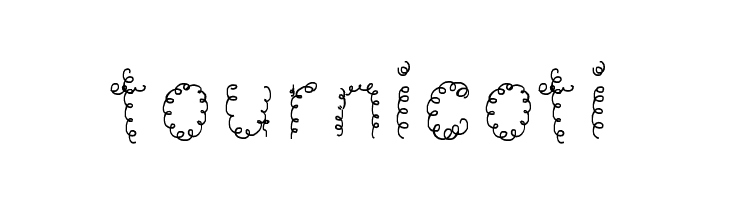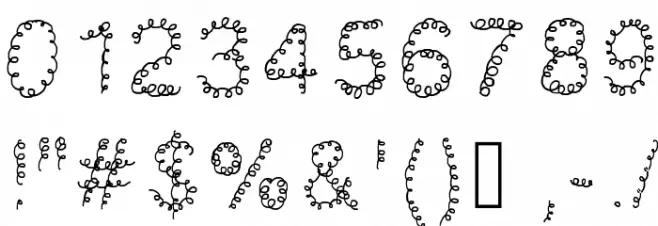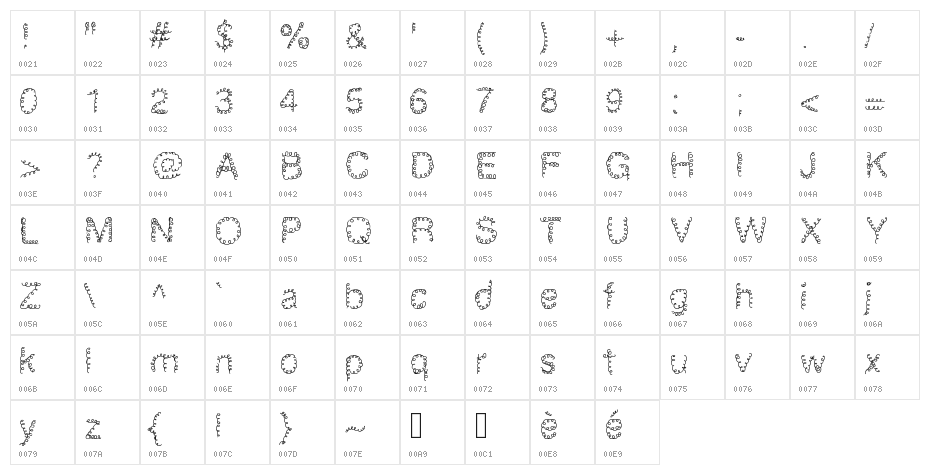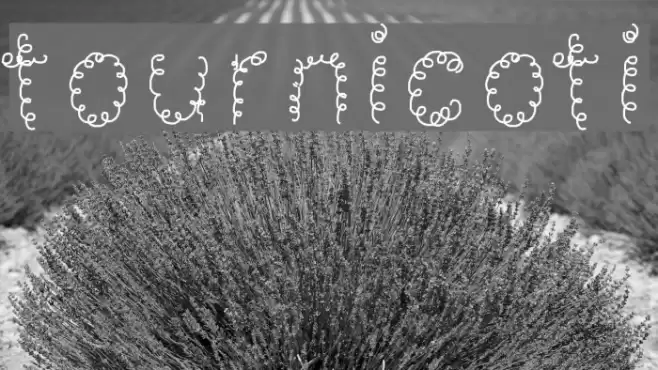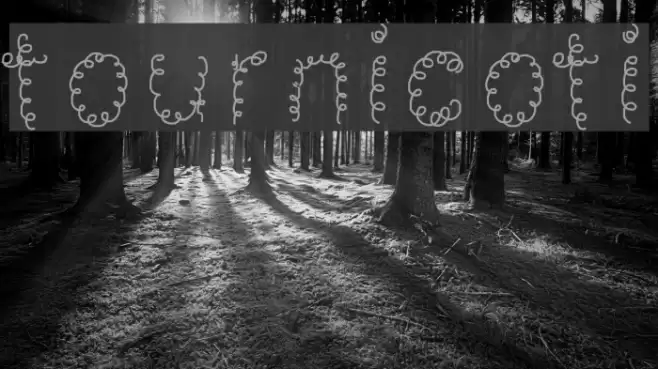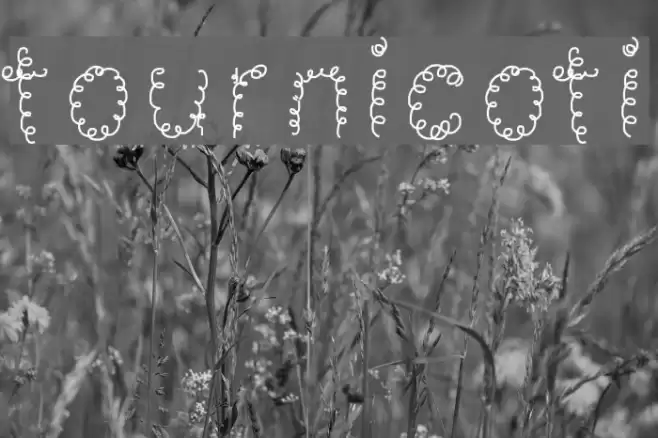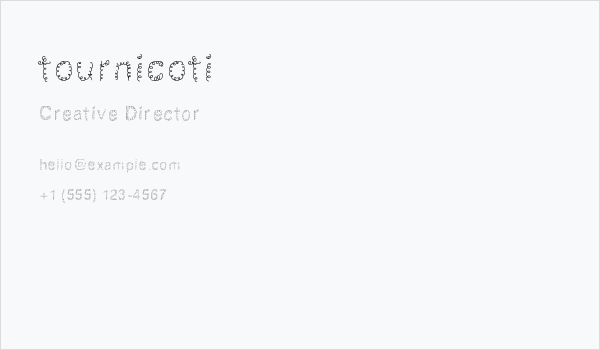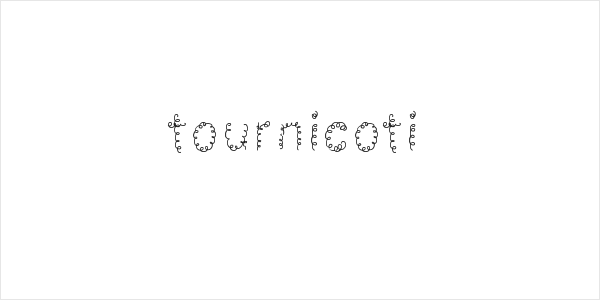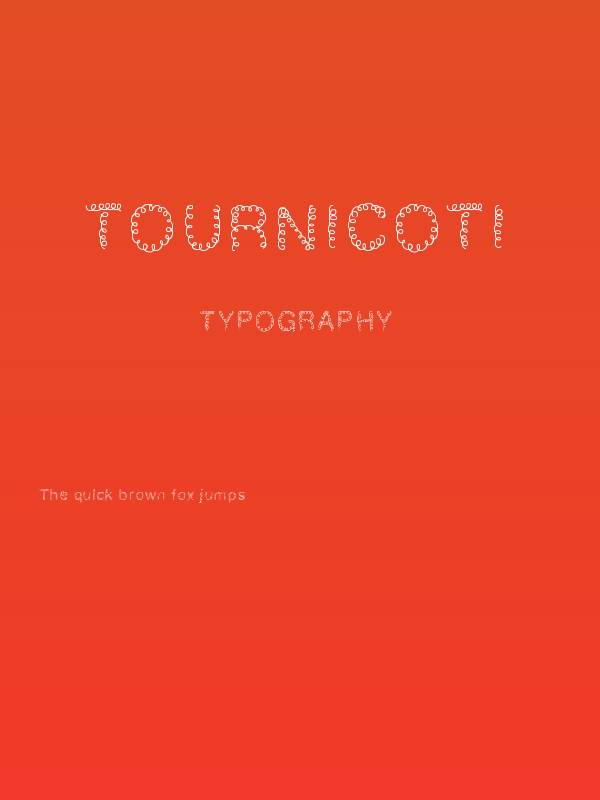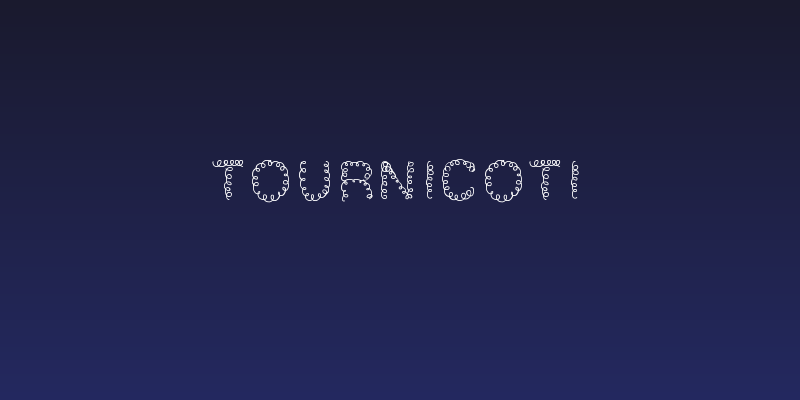
tournicoti Font
tournicoti Description
This whimsical and playful font features a unique design where each character is composed of intricate spiral curls. The letters have a hand-drawn, decorative quality that gives them a lively and dynamic appearance. The font maintains a consistent style across uppercase, lowercase, numbers, and special characters, making it visually cohesive. The curls add a sense of movement and creativity, making it ideal for projects that require a fun and engaging aesthetic. The font's distinctiveness lies in its ability to convey a sense of joy and spontaneity, perfect for creative and artistic applications.
| Overall Style | Playful and Artistic |
| Use Case | Headlines, Logos, Creative Projects |
| Proposed Projects | Ideal for children's book covers, playful invitations, creative posters, and artistic branding. |